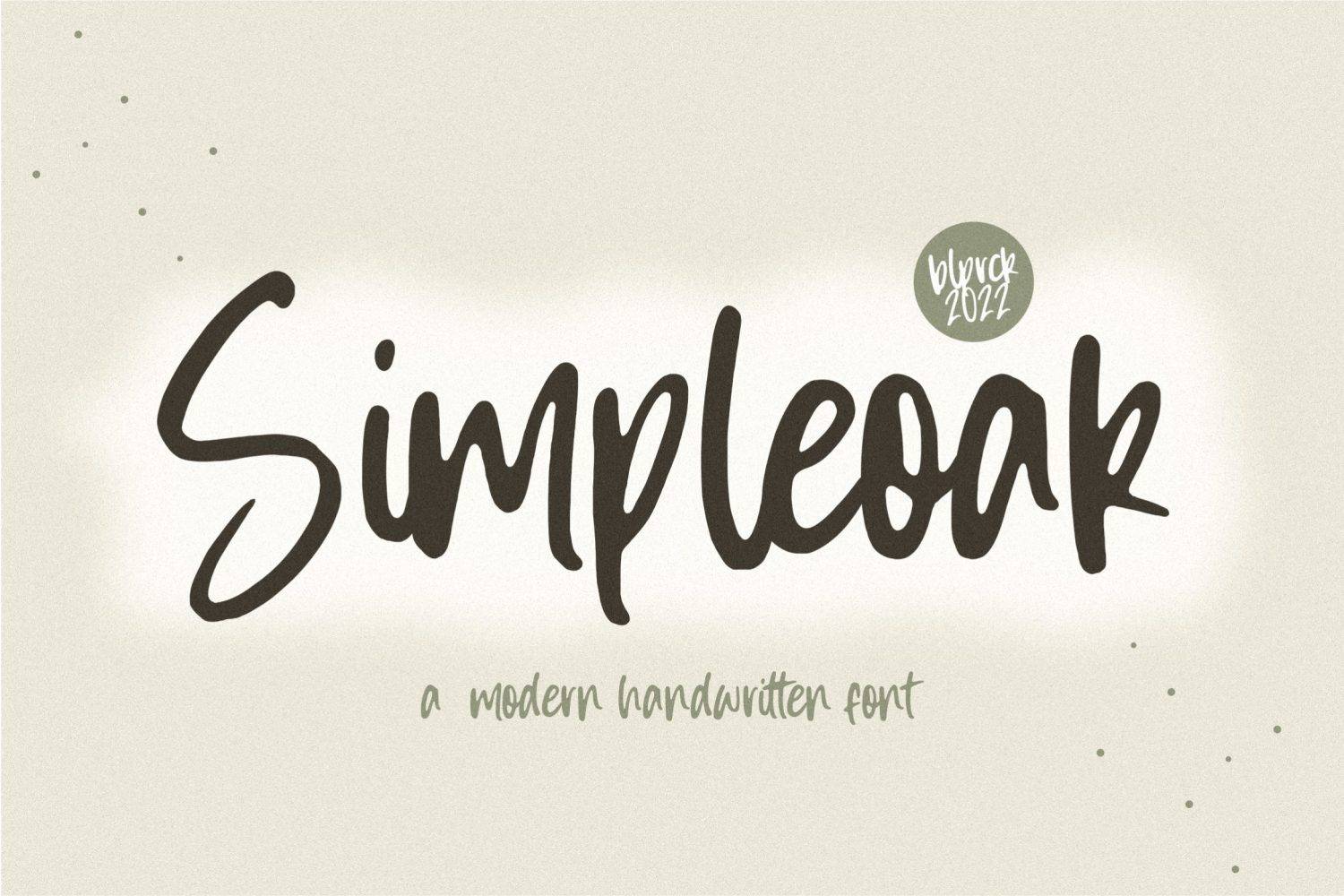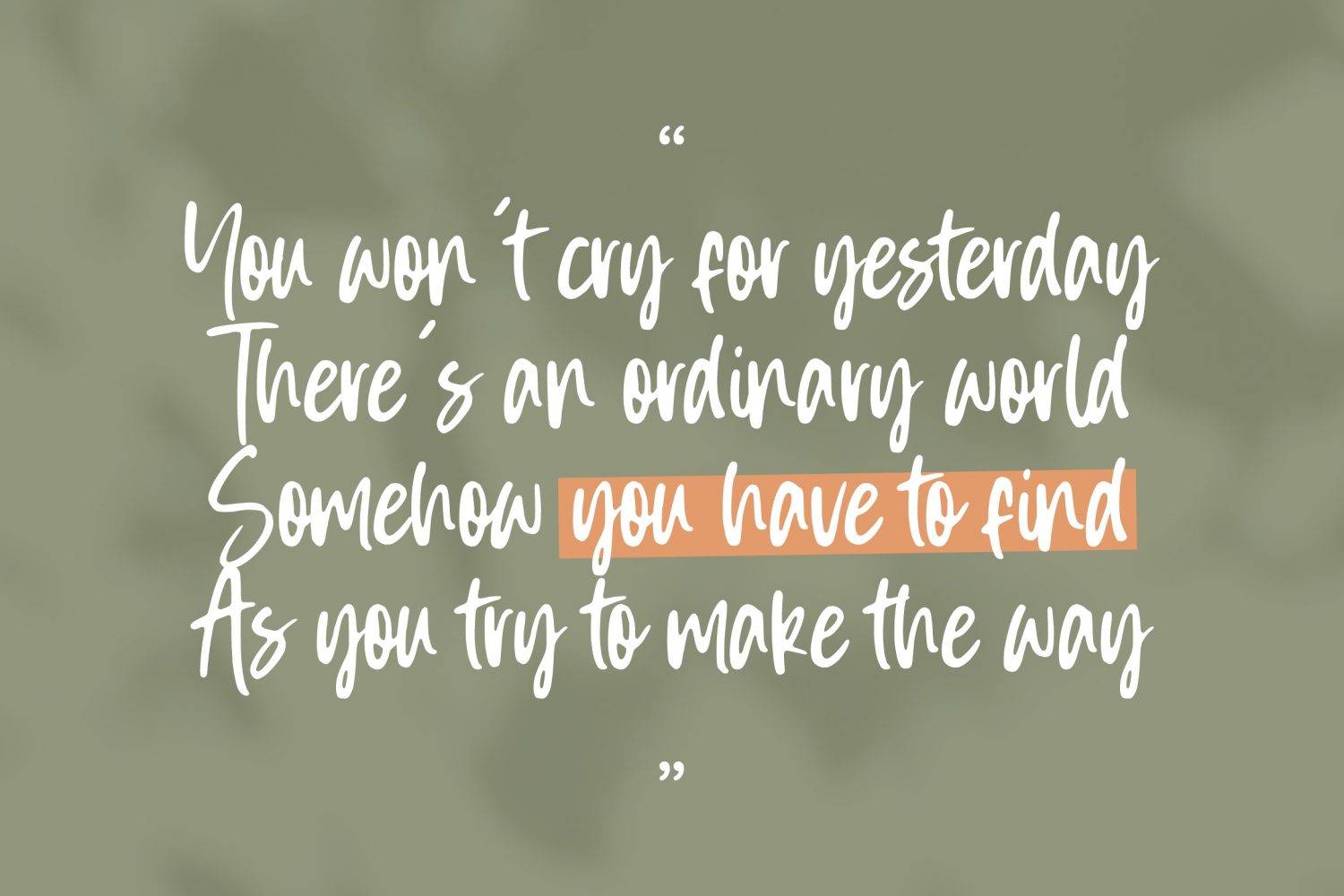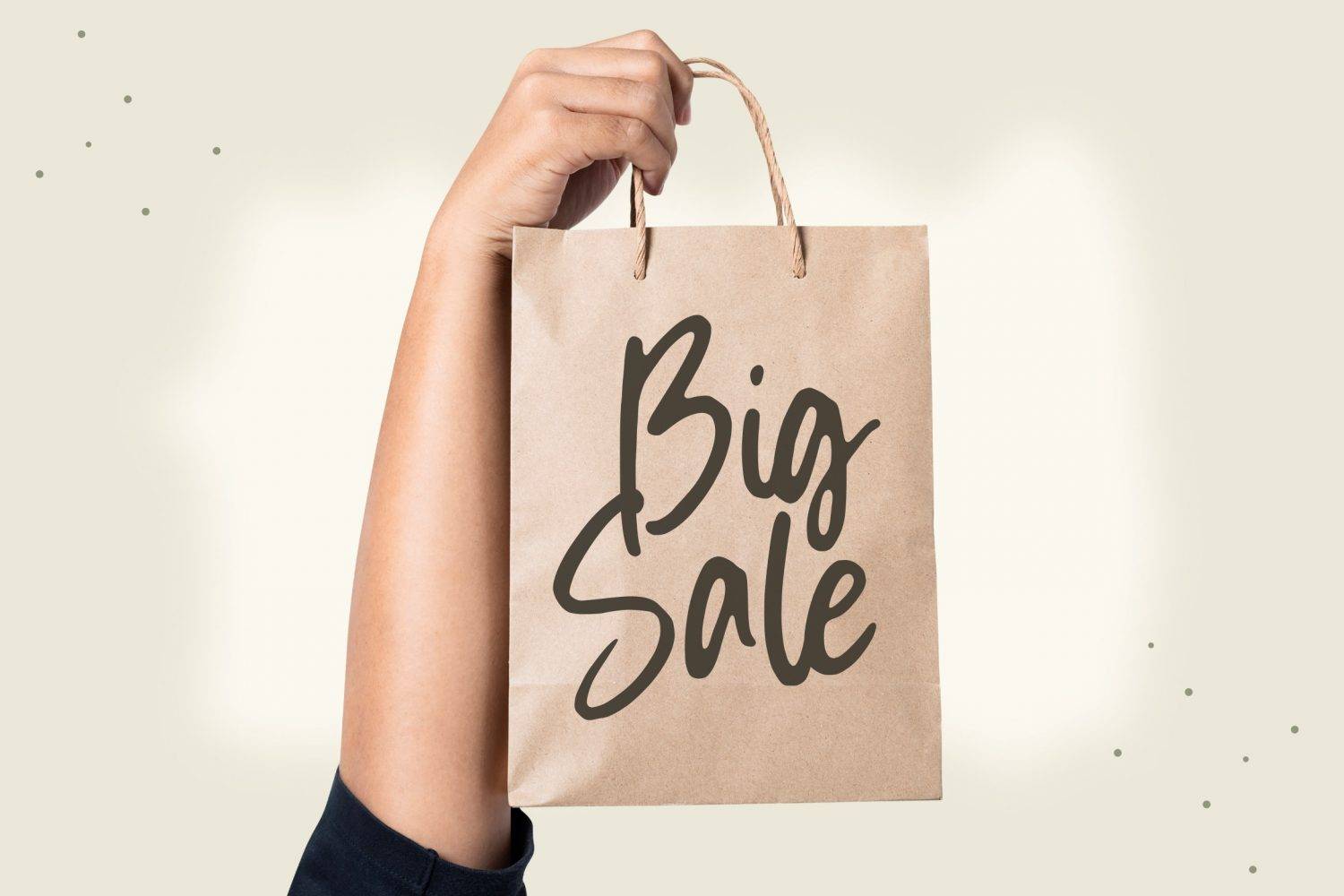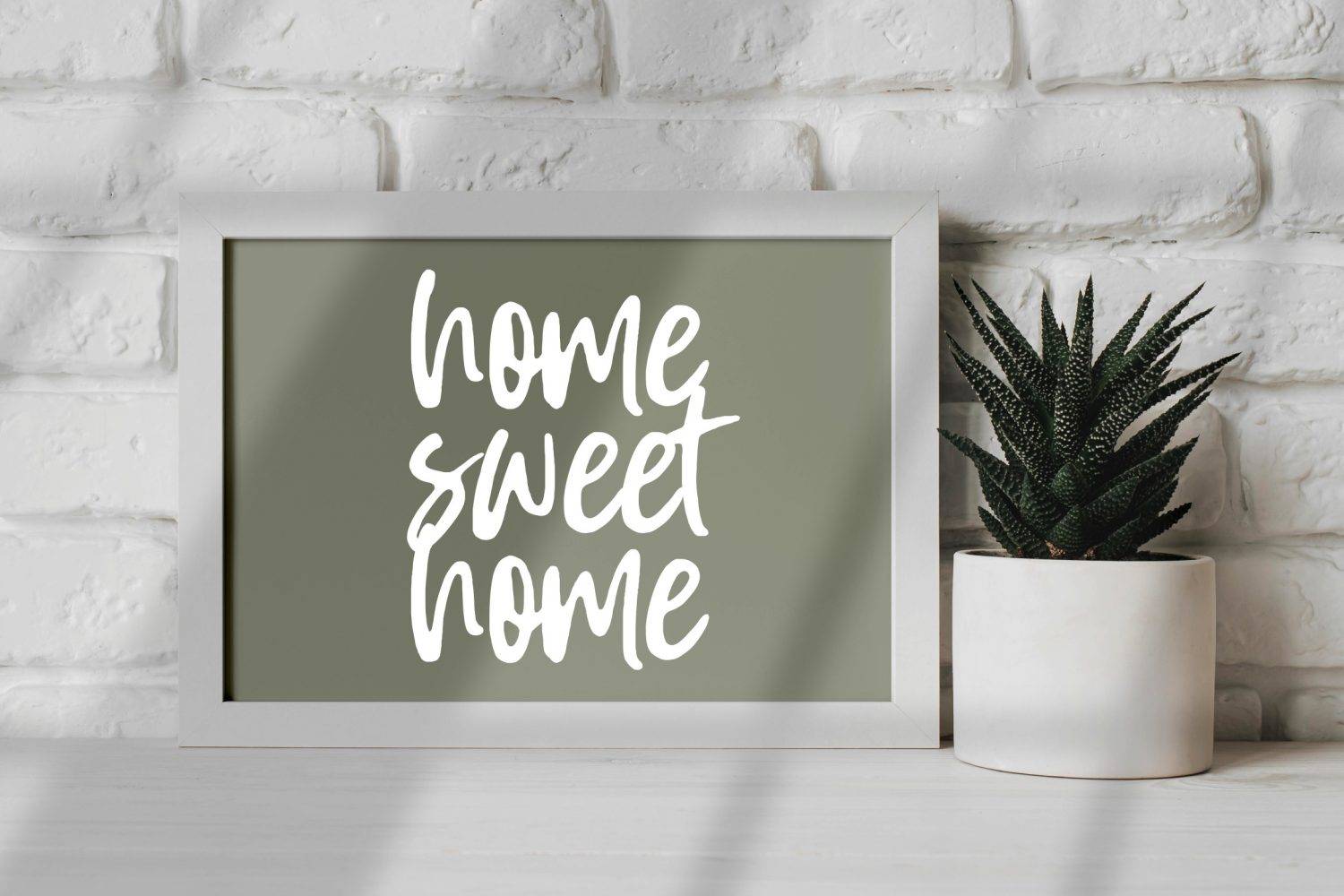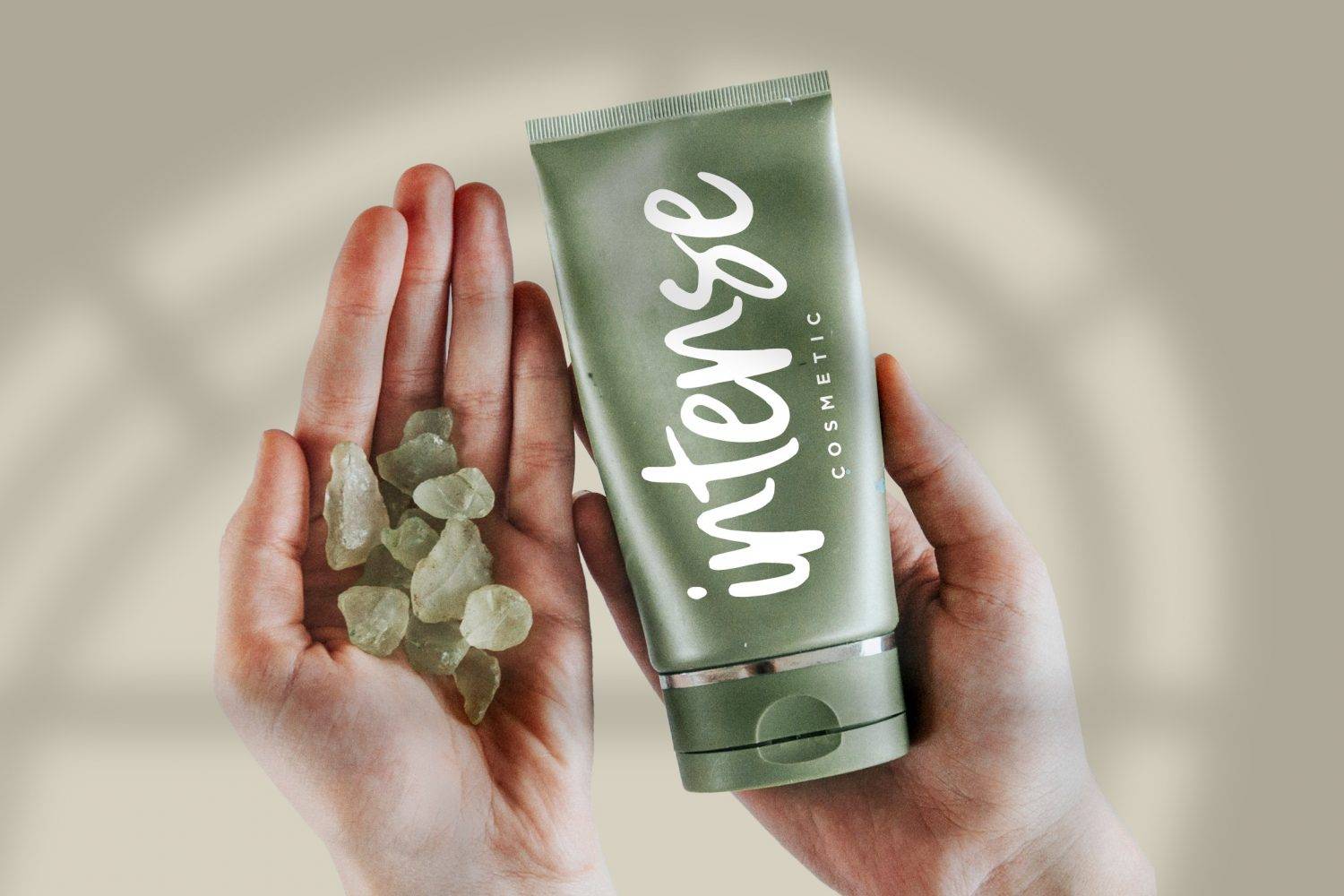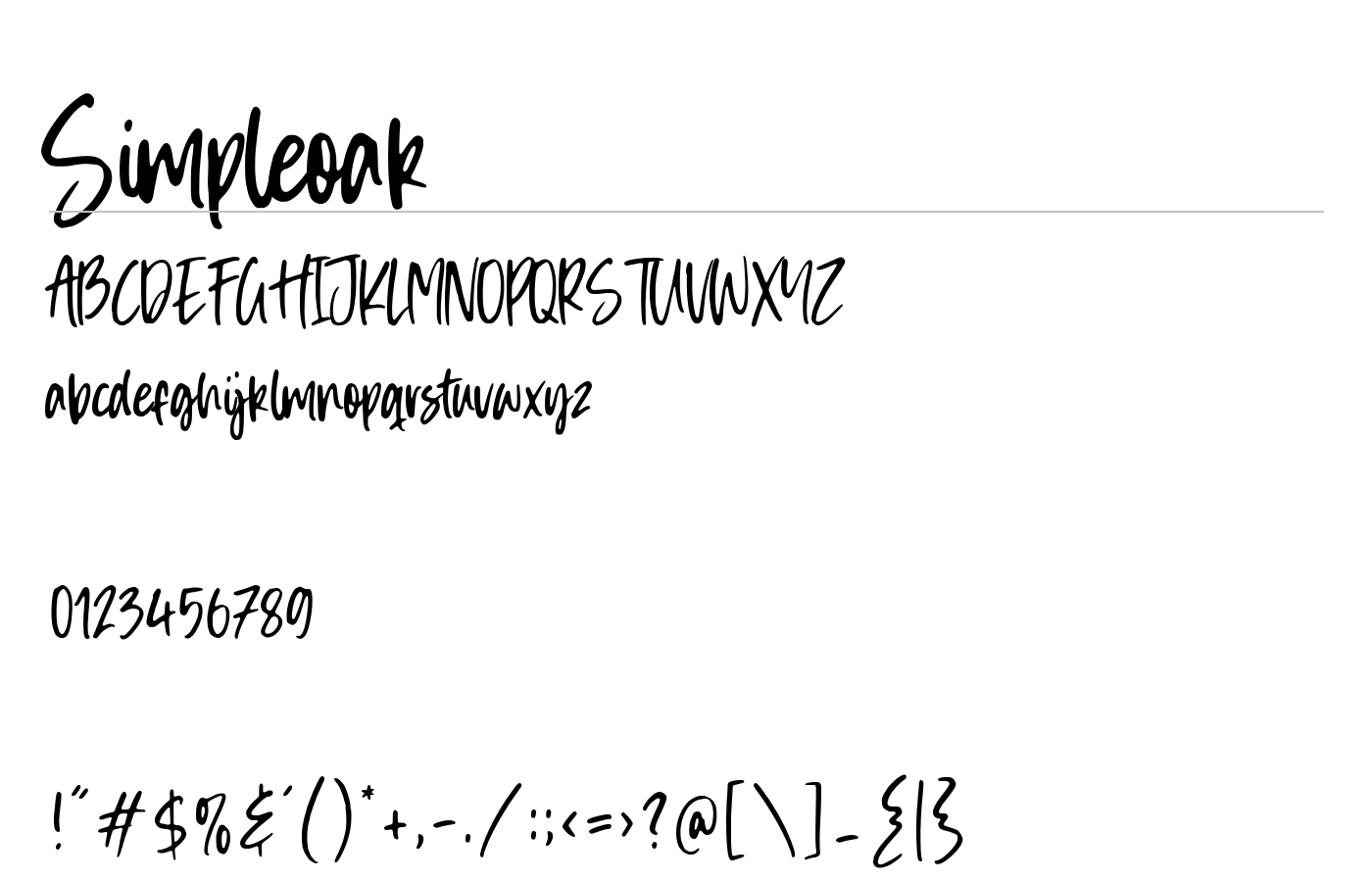
Simpleoak is a lively handwritten script font featuring a playful, casual style with moderate weight and an upright stance. Its tall, narrow letterforms and organic strokes give it a friendly, approachable feel, perfect for adding a personal touch to creative projects. Ideal for branding, social media, and informal headlines, Simpleoak brings a warm, authentic voice to designs seeking a relaxed yet stylish impression.
Simpleoak Font
About Simpleoak Font
| Font family | Simpleoak Font |